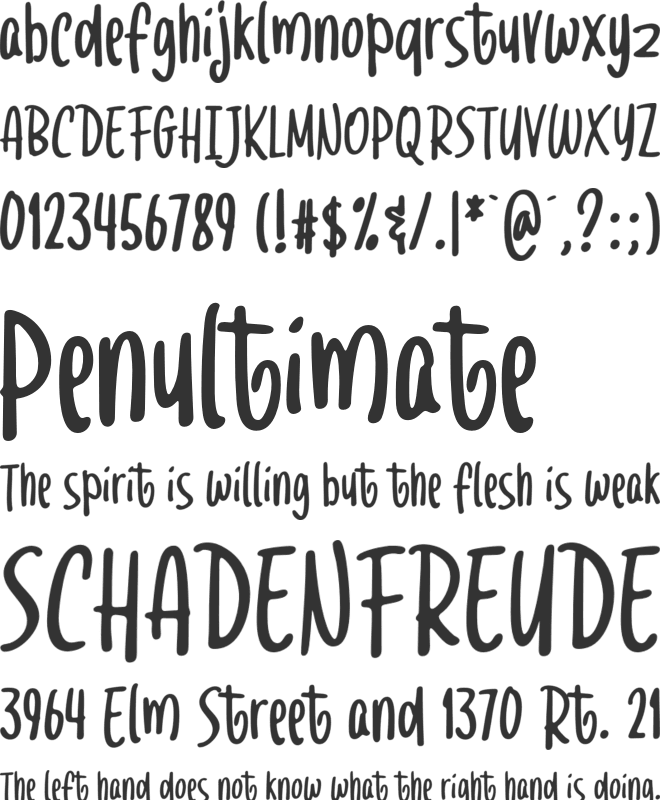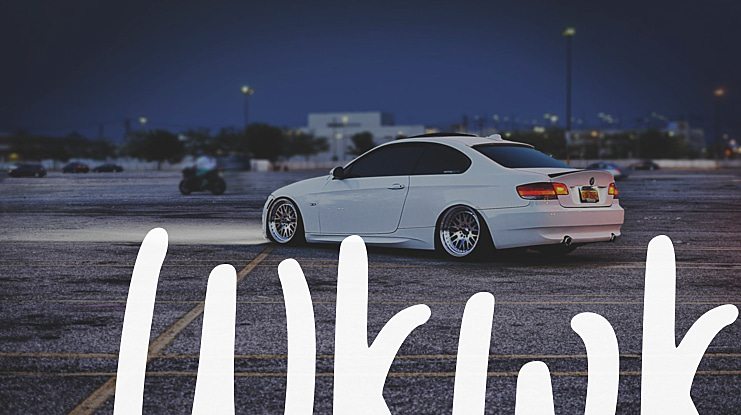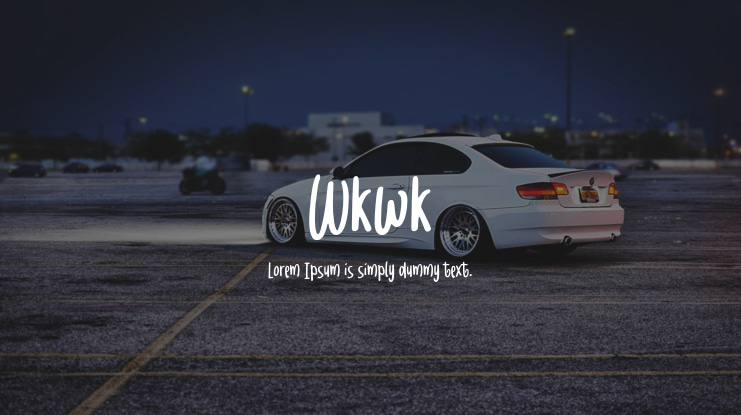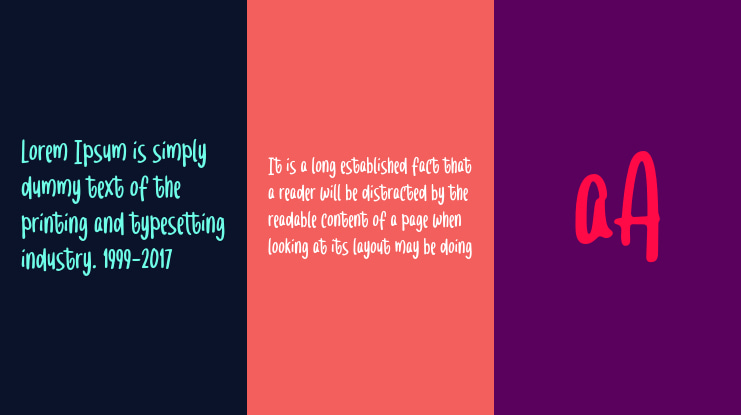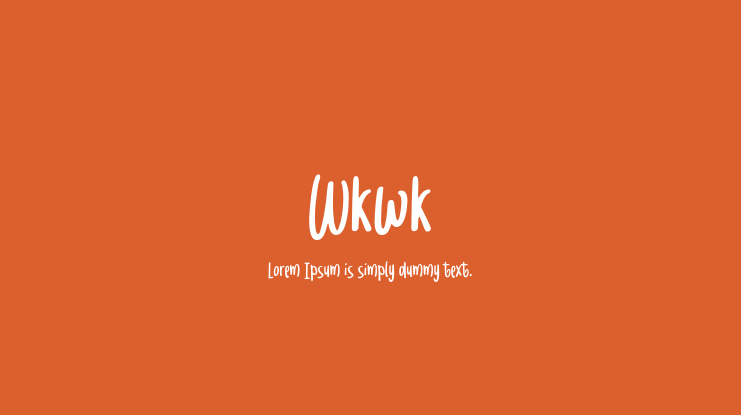
Wkwk Font
Introducing the Wkwk Font, a playful and captivating handwritten typeface inspired by the dynamic strokes of a brush. This font is the ideal choice for adding a touch of lively creativity to your designs.
Wkwk Font is incredibly versatile and works wonders across various design projects. Whether you're working on eye-catching posters, captivating movie titles, or engaging packaging, this font brings an element of playfulness and spontaneity to your work.